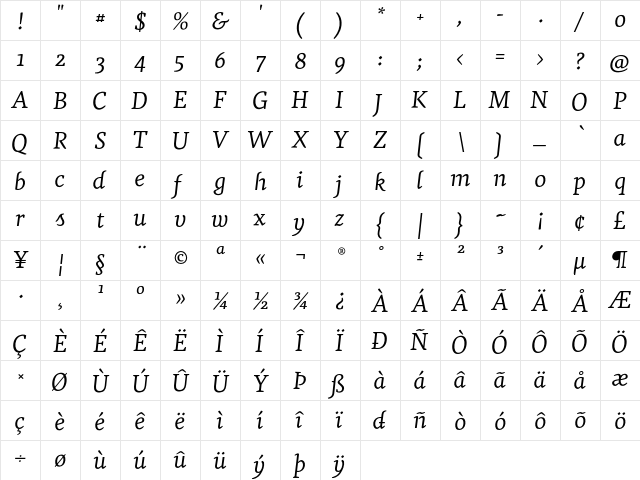
Agendatype Swash Italic
| Foundry | FONTFARM: K.F. Oetzbach und Natascha Dell, Aachen, Germany |
| Designer | FONTFARM: K.F. Oetzbach und Natascha Dell, Aachen, Germany |
Design Context for Agendatype Typeface
Agendatype flows with the natural rhythm of handwritten lettering, making it ideal for designs that call for warmth and personal expression.
Font Pairing: Combine Agendatype with a simple geometric sans for maximum contrast — the tension between flowing curves and clean structure is a classic typographic pairing.
Pro Tip: Use Agendatype for short runs of text — names, titles, or taglines. Extended body copy in script faces tires the eye quickly.